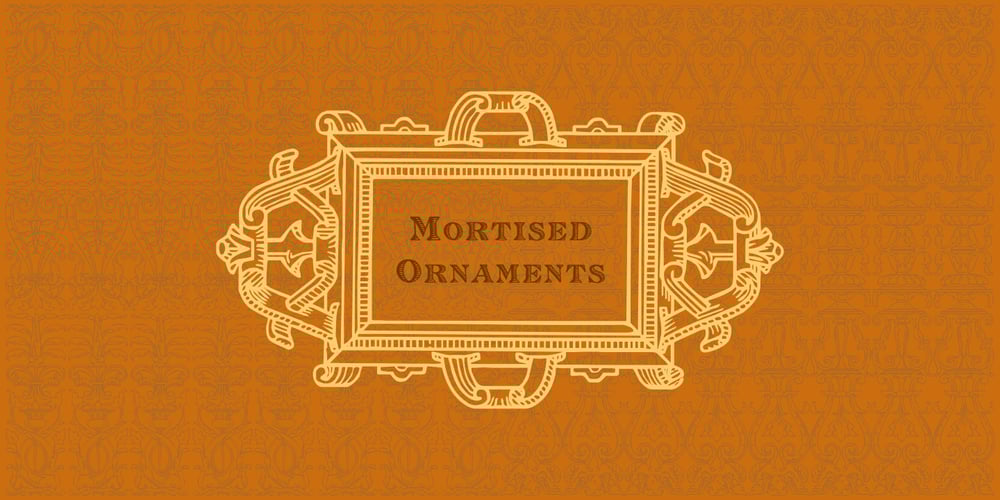
Mortised Ornaments Font Family was designed by Paulo W and published by Intellecta Design. Mortised Ornaments contains 2 styles and family package options. A decorative display font featuring many different styles of flourishes and ornaments. Great for a vintage antique feel.